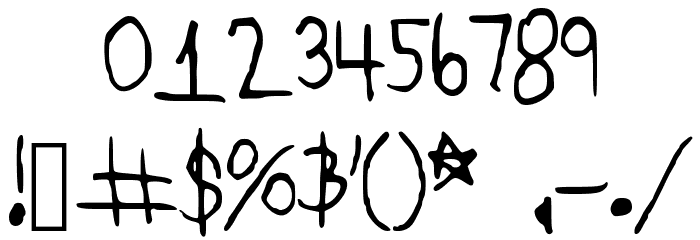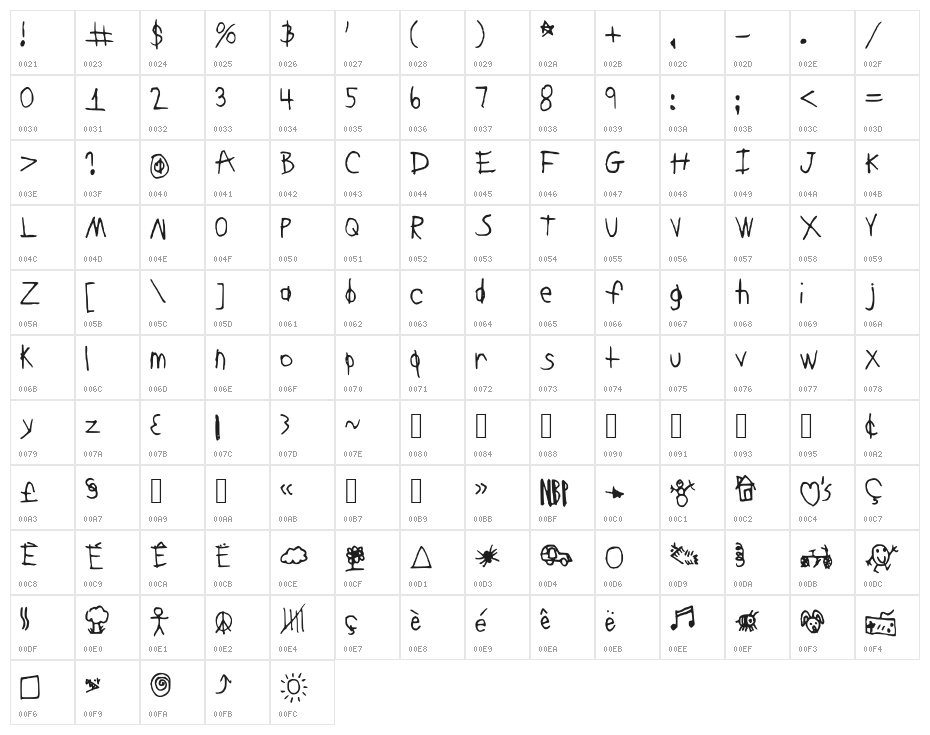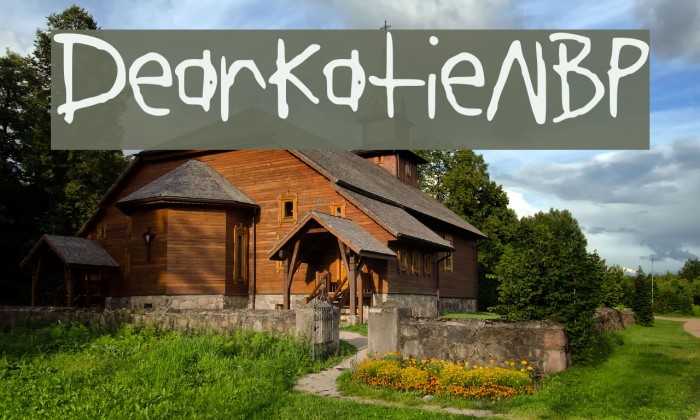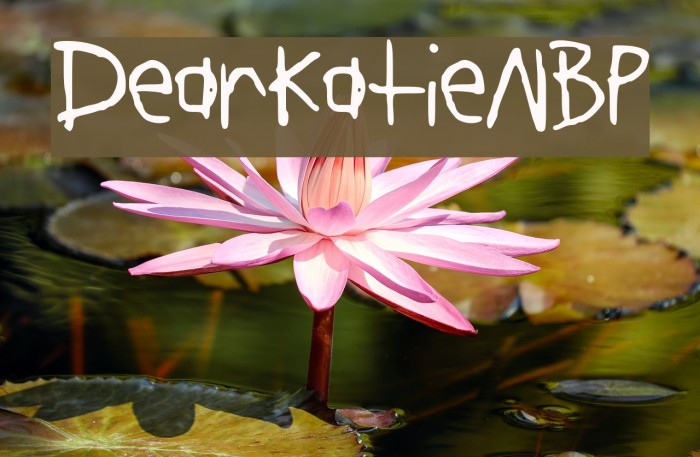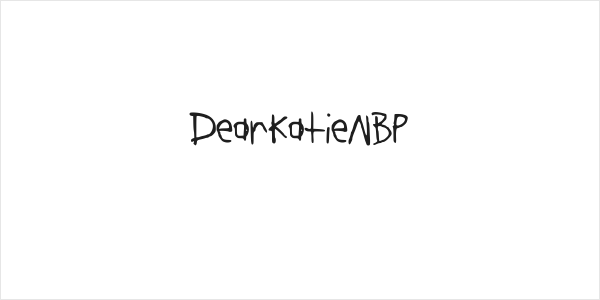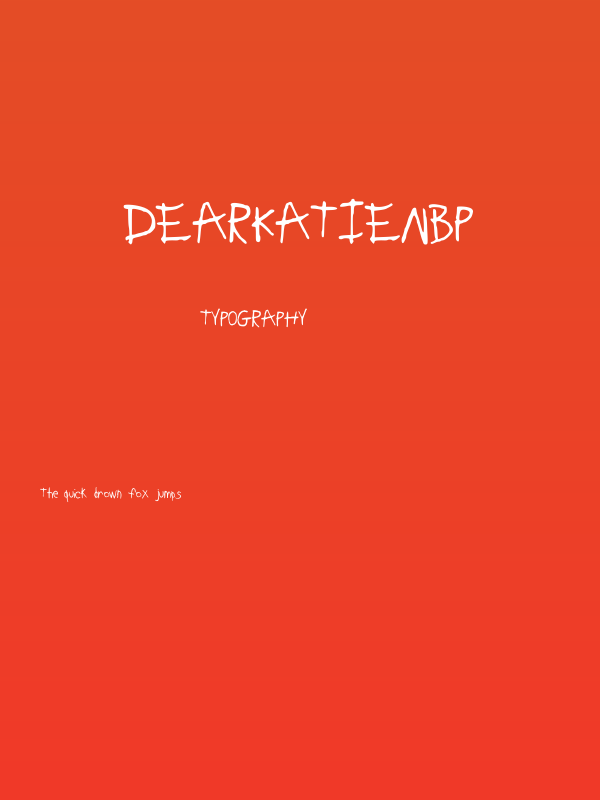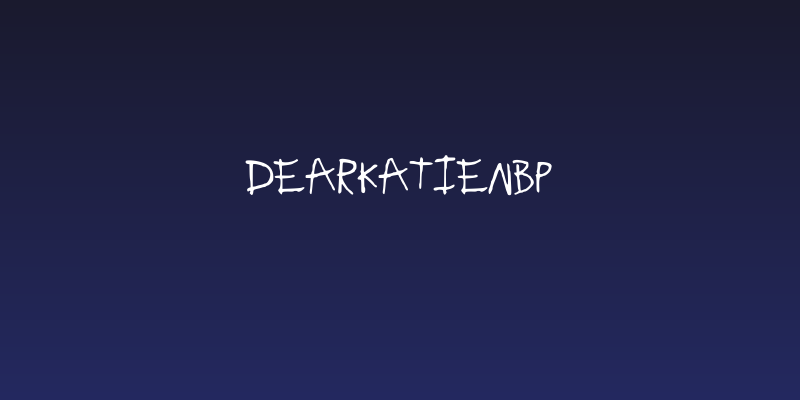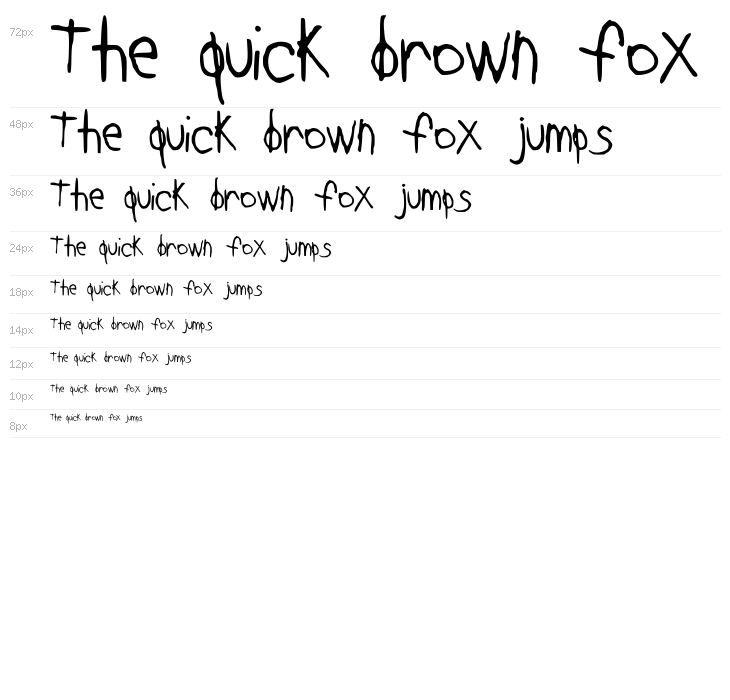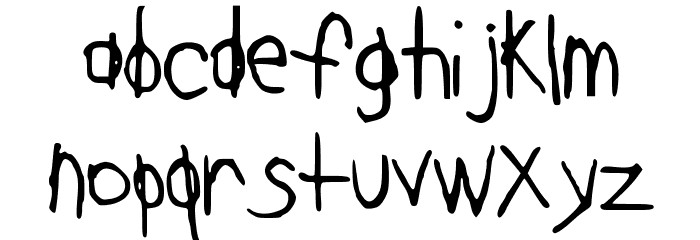
DearKatieNBP Font
DearKatieNBP Description
This font features a playful and informal handwritten style, characterized by its uneven strokes and casual appearance. The letters have a slightly irregular baseline, adding to the whimsical and spontaneous feel. The uppercase and lowercase letters maintain a consistent style, with rounded edges and varying stroke widths that give a dynamic and lively impression. The numerals and special characters follow the same informal aesthetic, making the font suitable for creative and fun projects. Its unique charm lies in its ability to convey a sense of personal touch and authenticity.
| Overall Style | Playful, Informal |
| Proposed Projects | Ideal for greeting cards, children's books, casual invitations, and playful branding. |